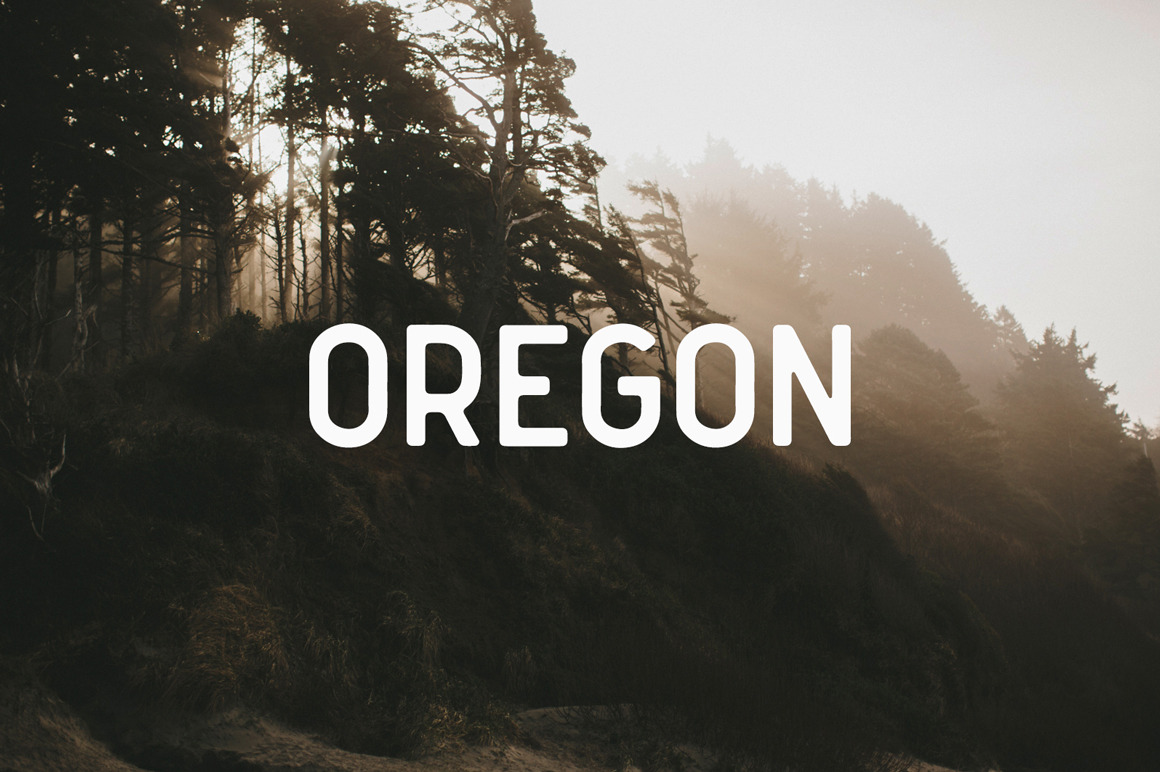
Oregon Font
Oregon is a clean and simple vintage sans serif font, with smooth edges to simulate vintage printing. Perfect for vintage logo designs, headers and small amounts of text. It contains an uppercase alphabet with numbers and symbols.